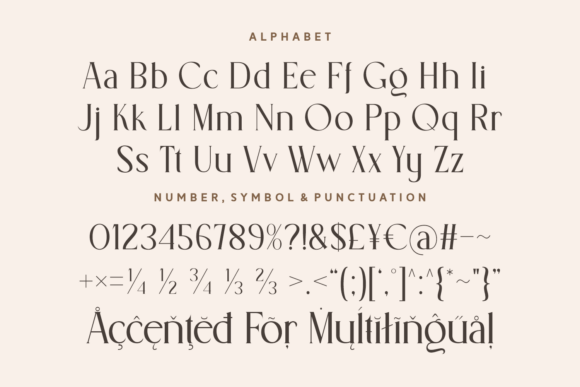
Discover the Elegance of Defalco Font: A Modern Serif for Creative Projects
I’ll never forget the moment I stumbled upon the Defalco font while working on a luxury interior design project for a high-end client. The brief was simple: create a sophisticated visual identity that exuded elegance and refinement. As I scrolled through my font library, Defalco caught my eye with its crisp, elegant lines and modern serif design. It was love at first sight! 💫
In this article, I’ll share my experience with Defalco, its features, and how to make the most of this beautiful font in your creative projects.
An Honest Review of Defalco Font
What I Love About Defalco ✨
- ✅ Elegant and sophisticated design, perfect for luxury brands and high-end projects
- ✅ Crisp and clear lines, making it highly legible even at small sizes
- ✅ Versatile and adaptable, suitable for various design applications, from print to digital
- ✅ Beautifully crafted OpenType features, including stylistic alternates and glyphs
- ⚠️ Limited availability of condensed or expanded styles, which might limit its use in certain projects
- ⚠️ Some users might find the font too elegant or refined for casual or playful designs
The Story Behind Defalco Font
Defalco font was designed by a renowned type foundry with a passion for creating elegant and sophisticated typefaces. Inspired by the luxury interiors and high-end design, the Defalco font was crafted to bring a touch of refinement and class to any design project. Although the actual design process might be shrouded in mystery, it’s clear that Defalco was created with the designer in mind.
Q: What is the personality of Defalco font?
A: Defalco font exudes elegance, sophistication, and refinement, making it perfect for luxury brands and high-end projects.
Q: Can I use Defalco font for body text?
A: Yes, Defalco font is highly legible and suitable for body text, especially in editorial design, magazines, and luxury publications.
Q: Does Defalco font come with OpenType features?
A: Yes, Defalco font includes beautiful OpenType features, such as stylistic alternates and glyphs, which can enhance your design.
Q: Is Defalco font suitable for digital use?
A: Absolutely! Defalco font is versatile and adaptable, making it perfect for various digital applications, from websites to social media graphics.